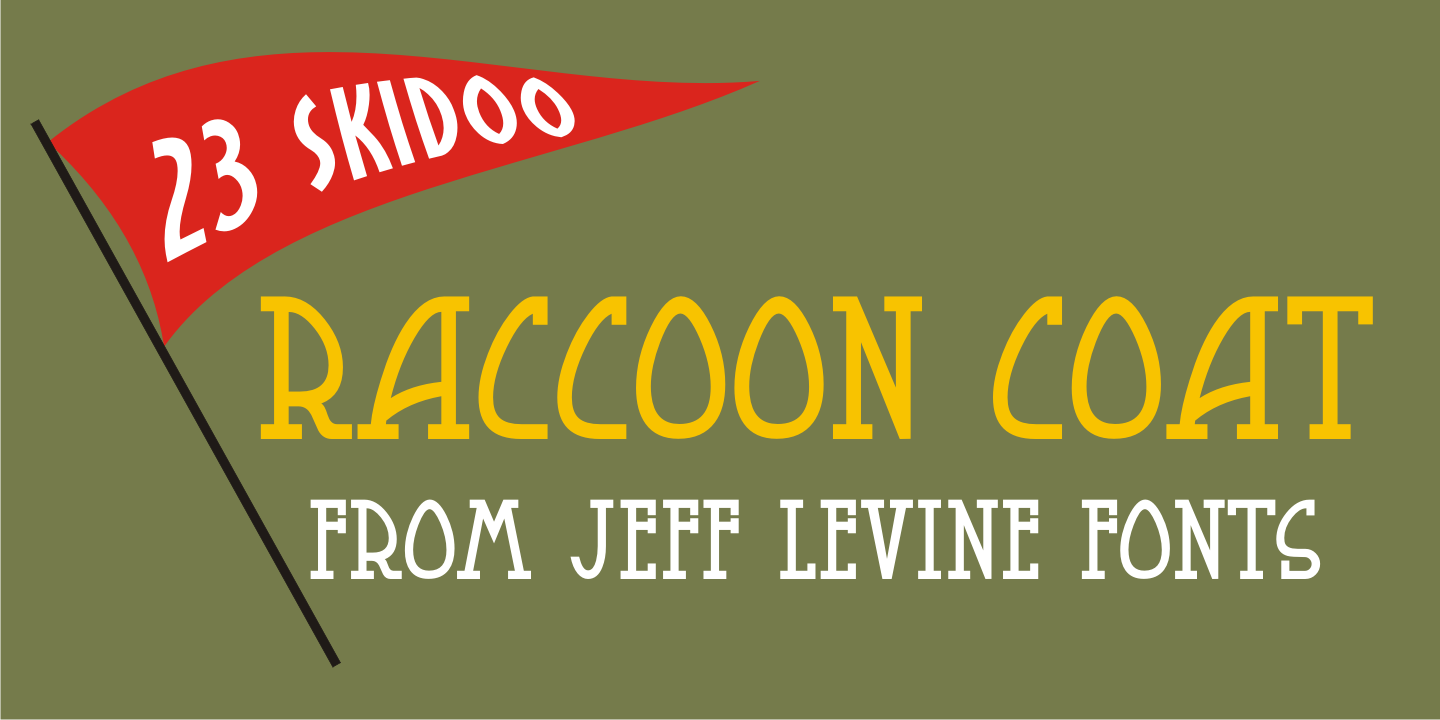
Raccoon Coat JNL Font is excellent for vintage college branding, 1920s party invitations, retro sports team logos, classic university materials, speakeasy bar signage, jazz age event posters, nostalgic alumni campaigns, vintage fraternity designs, and roaring twenties themed projects.
What makes Raccoon Coat JNL Font so exciting is its authentic jazz age charm that perfectly captures the spirited energy and collegiate sophistication of 1920s American university culture. This charismatic typeface features bold letterforms with vintage collegiate styling and period-appropriate proportions that instantly transport viewers to the era of raccoon coats, pep rallies, and campus traditions. The font's distinctive character incorporates the enthusiasm and school spirit of golden age college life, making it ideal for brands seeking to communicate tradition, legacy, and timeless American educational values.
Raccoon Coat JNL Font includes a spirited family with Regular, Bold, and Outline variations, each maintaining the signature collegiate aesthetic while offering different levels of vintage impact for various educational and nostalgic applications. Additional period-appropriate ornaments and university-inspired decorative elements enhance the font's authentic 1920s appeal for historical projects.
Whether you're developing heritage educational brands, creating vintage-themed marketing materials, or designing nostalgic celebration campaigns, Raccoon Coat JNL Font Free Download delivers the authentic charm and collegiate spirit that vintage university projects require. Its versatile nature makes it suitable for both large display applications and detailed period text while maintaining consistent jazz age appeal across all nostalgic platforms. This exceptional typeface brings genuine historical character to modern designs, ensuring your message communicates tradition and school pride that resonates with audiences who appreciate American collegiate heritage and value design that celebrates the golden era of university culture.